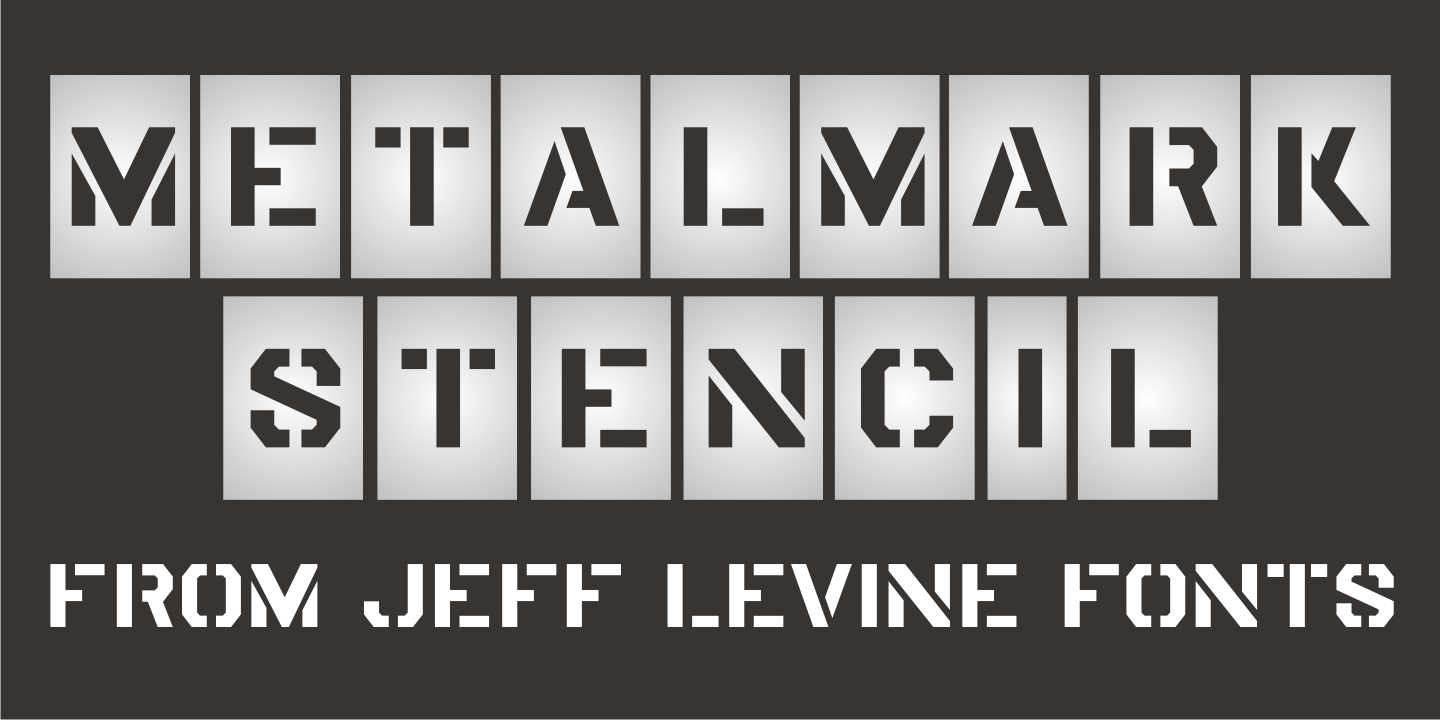
Metalmark Stencil
A lot of interesting variations in lettering style can be found in sets of antique tin or brass marking stencils. One such set was the model for Metalmark Stencil JNL, a bold sans with a chamfered look.
Metalmark Stencil JNL Regular by Jeff Levine Fonts